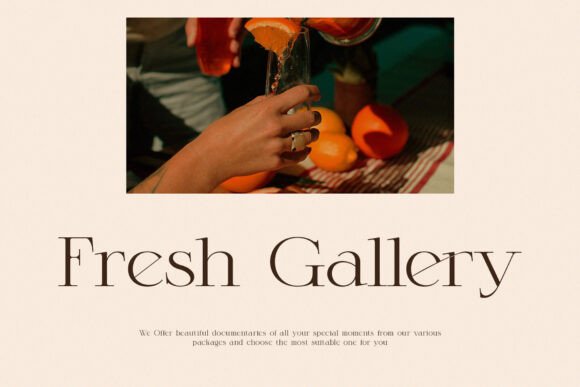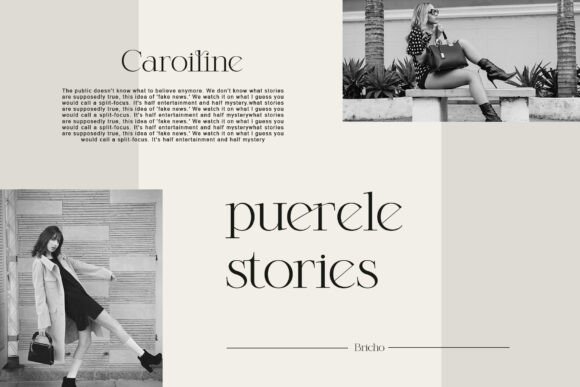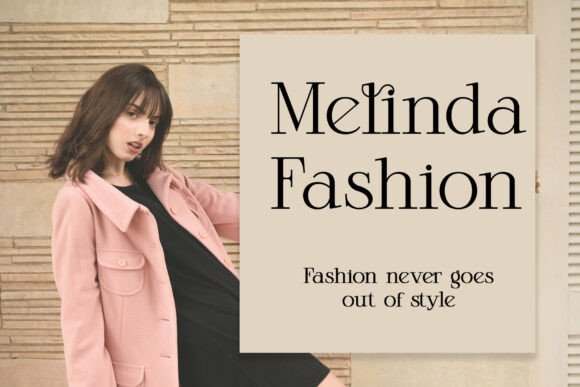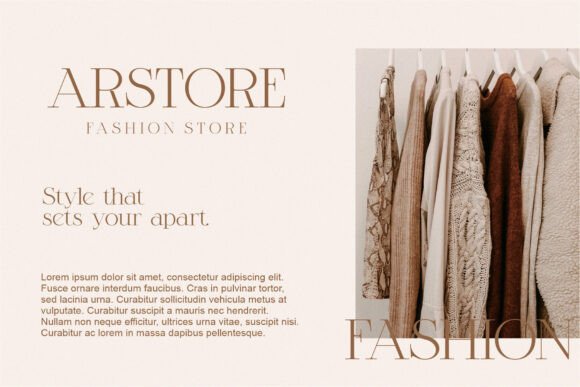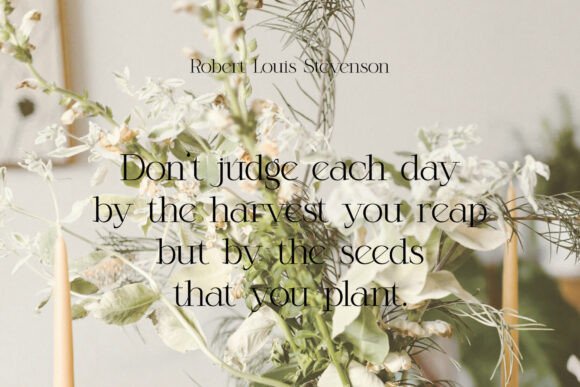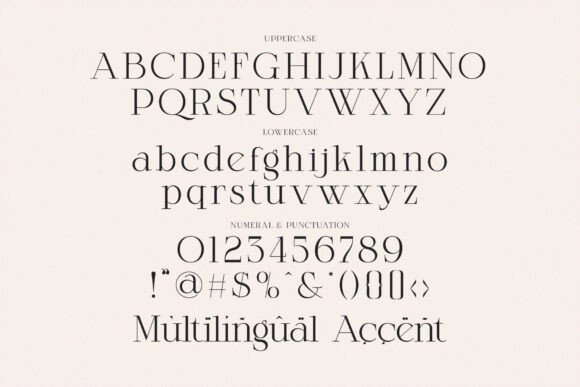
Introducing Bricho Font: Elegance and Sophistication in Every Letter
In the world of typography, few fonts manage to convey the perfect blend of elegance, sophistication, and modernity. Bricho Font is one such typeface that has captured the hearts of designers and crafters alike with its unique charm and refined aesthetic. This elegant ligature serif modern font is designed to evoke the beauty of fresh blooms and timeless elegance, making it an ideal choice for upscale designs.
The Beauty of Bricho Font
Bricho Font stands out with its bold yet refined ligatures, exuding a sense of sophistication and femininity. The font’s classic serif style is infused with a modern twist, making it perfect for a wide range of applications, from florals and fashion to high-end branding. Every letter in the Bricho Font feels intentional, with a soft and graceful presence that elevates any project it touches.
Key Features of Bricho Font
- Elegant Ligature Serif Design: Bricho boasts a beautiful ligature serif design that adds a touch of elegance to any text.
- Modern Twist: The font combines classic serif styles with a modern twist, making it versatile and suitable for various design projects.
- Sophisticated and Feminine: Bricho’s refined aesthetic makes it perfect for designs that require a touch of sophistication and femininity.
- High-End Branding: The font’s elegance and refinement make it an ideal choice for high-end branding, luxury packaging, and upscale marketing materials.
Perfect for Upscale Designs
Bricho Font is designed to bring a touch of refinement and natural grace to your work. Whether you’re working on a floral design, fashion brand, or high-end product, Bricho is the perfect choice. The font’s elegant ligatures and refined aesthetic make it suitable for a wide range of applications, including:
- Floral Designs: Bricho’s floral-inspired design makes it perfect for floral arrangements, gardening blogs, and flower-related businesses.
- Fashion Brands: The font’s sophisticated and feminine aesthetic makes it ideal for fashion brands, luxury clothing lines, and high-end boutiques.
- High-End Branding: Bricho’s elegance and refinement make it perfect for high-end branding, luxury packaging, and upscale marketing materials.
Why Choose Bricho Font?
With so many fonts available, why choose Bricho? Here are a few reasons why Bricho stands out:
- Unique Design: Bricho’s elegant ligature serif design is unlike any other font, making it a standout choice for designers.
- Versatility: The font’s modern twist and refined aesthetic make it suitable for a wide range of applications.
- Elegance and Sophistication: Bricho exudes elegance and sophistication, making it perfect for high-end designs.
In conclusion, Bricho Font is a beautiful and elegant typeface that is perfect for designers and crafters looking to add a touch of refinement and natural grace to their work. With its bold yet refined ligatures, modern twist, and sophisticated aesthetic, Bricho is an ideal choice for upscale designs. Whether you’re working on a floral design, fashion brand, or high-end product, Bricho is sure to elevate your project and bring a touch of elegance and sophistication to your work.